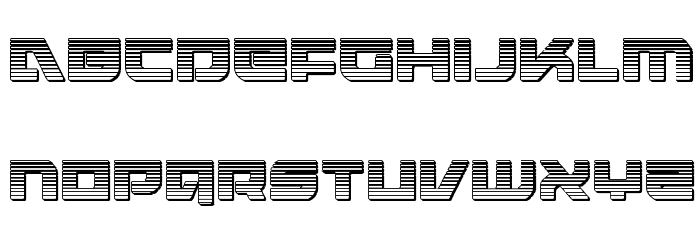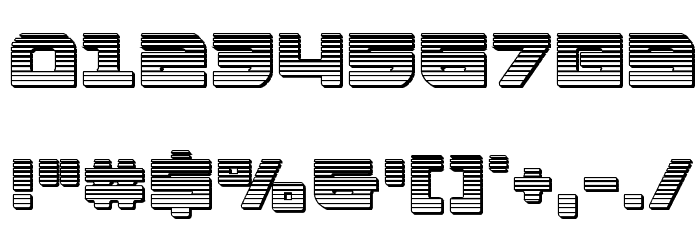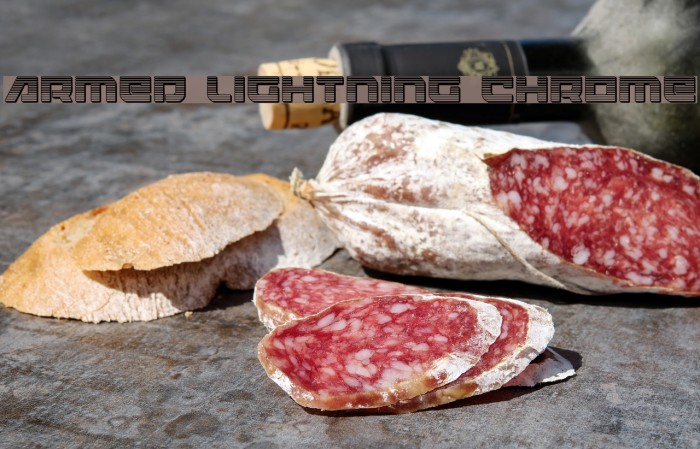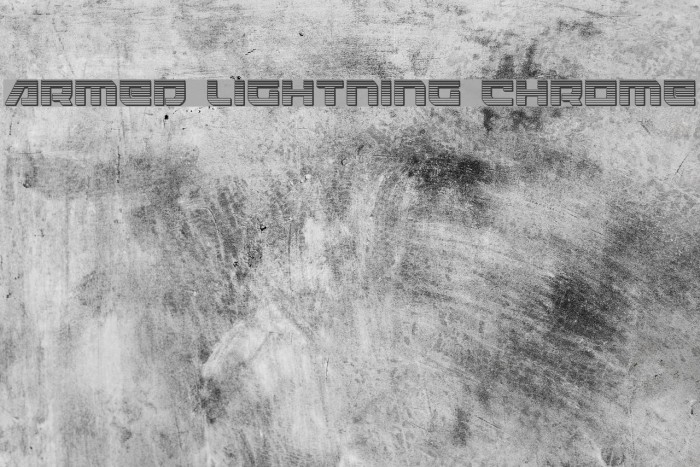
Armed Lightning Chrome Font
This font features a bold, futuristic design with a distinct chrome-like appearance. Each character is composed of multiple parallel lines, creating a layered effect that suggests movement and energy. The geometric shapes are sharp and angular, giving the font a modern and industrial feel. The uppercase and lowercase letters maintain a consistent style, with uniform line thickness and spacing. Numbers and special characters are designed with the same attention to detail, ensuring a cohesive look across all elements. This font is ideal for projects that require a strong, dynamic visual impact.
A bold, futuristic font with a chrome-like, layered design.
- Font: Armed Lightning Chrome
- Proposed Projects: Ideal for sci-fi themed posters, video game titles, and tech branding.